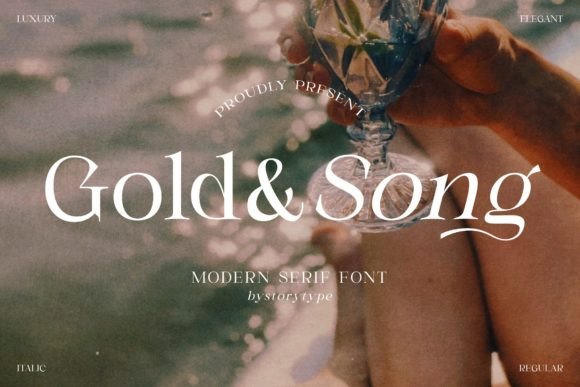
Introducing Gold Song Font: The Epitome of Luxury and Elegance
In the realm of typography, few fonts have managed to capture the essence of luxury and sophistication as effectively as the Gold Song Font. This modern and classic serif font has carved out its own niche, distinguished by its unique style that effortlessly blends contemporary flair with timeless elegance. Whether you’re a designer looking to elevate a luxury brand, a crafty individual seeking the perfect font for your fashion label, or simply someone who appreciates the finer details in typography, Gold Song Font is an exceptional choice.
The Unique Style of Gold Song Font
Gold Song Font stands out in the crowded world of typography due to its distinctive serif characteristics. Its design is meticulously crafted to exude an air of sophistication and class, making it an ideal choice for projects that demand a high level of elegance. The serifs, with their subtle flair and precision, add a touch of refinement that can transform any text into a visually appealing piece of art. This font’s versatility means it can be used across a wide range of applications, from luxury logos and high-end fashion brands to books, magazines, and apparel.
Ideal Applications for Gold Song Font
The versatility of Gold Song Font is one of its most compelling attributes. Here are some of the ideal applications where this font truly shines:
- Luxury Logos: The font’s elegant and sophisticated design makes it perfect for luxury brands looking to make a statement.
- Books and Magazines: For publishing, Gold Song Font offers a classic look that can add depth and character to any literary work or magazine.
- Fashion Brands: In the fashion world, where style and elegance are paramount, Gold Song Font can help brands communicate their luxury status.
- Apparel: For clothing and accessory brands, this font can add a touch of sophistication to product names and descriptions.
- Quotes and Typography Art: The aesthetic appeal of Gold Song Font makes it excellent for creating inspirational quotes and typographic art.
Why Designers and Crafters Love Gold Song Font
Designers and crafters often seek fonts that not only look good but also offer flexibility and ease of use. Gold Song Font checks all these boxes and more. Here are a few reasons why it’s become a favorite:
- Readability: Despite its decorative serifs, Gold Song Font maintains excellent readability, making it suitable for both headings and body text.
- Customization: The font comes with a range of features that allow for customization, enabling designers to tailor it to their specific needs.
- Support: Good font support is crucial. Gold Song Font is well-supported across various platforms, ensuring consistency in its appearance.
Tips for Using Gold Song Font Effectively
To make the most out of Gold Song Font, consider the following tips:
- Pair it Wisely: Combine Gold Song Font with complementary fonts to create visual interest. A sans-serif font can provide a nice contrast.
- Play with Sizes: Use size variations to create a hierarchy of information, making your design more engaging.
- Experiment with Colors: While the font itself is elegant, experimenting with different colors can help match your brand’s aesthetic or project theme.
Gold Song Font is more than just a typeface; it’s a statement of elegance and sophistication. Its unique blend of modern and classic elements makes it a versatile tool for designers and crafters looking to add a touch of luxury to their projects. Whether you’re creating a logo, designing a magazine, or crafting apparel, Gold Song Font offers the perfect combination of style, readability, and customization. Embrace the elegance of Gold Song Font and elevate your designs to new heights of sophistication.